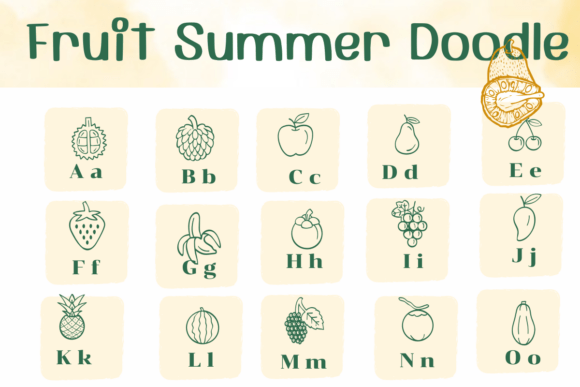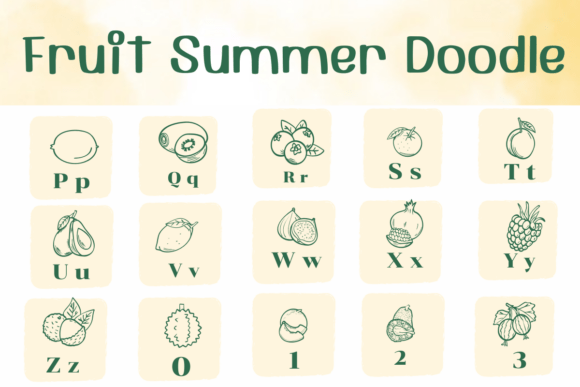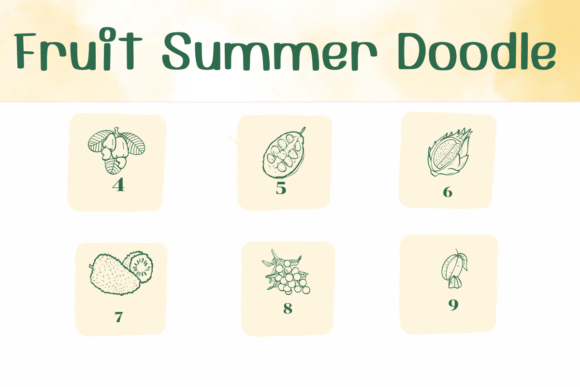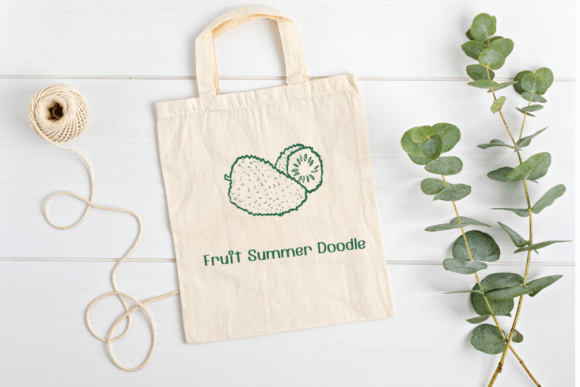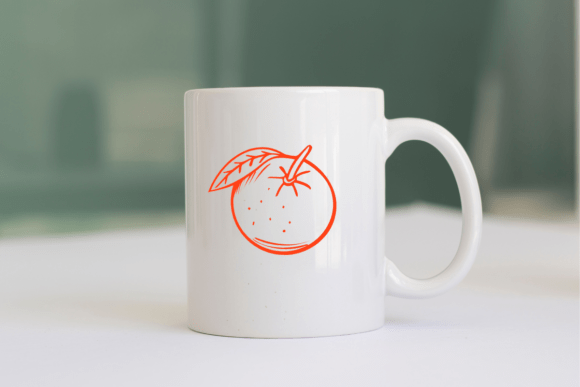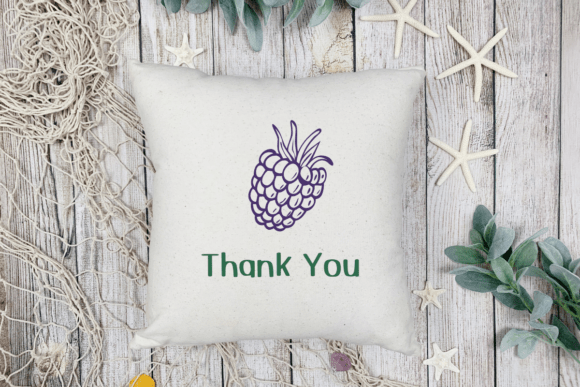
Fruit Summer Doodle Font: Add a Splash of Creativity to Your Designs
Are you looking for a fun and playful font to add a touch of summer to your designs? Look no further than the Fruit Summer Doodle Font! This charming dingbats font is filled with hand-drawn fruit illustrations that are perfect for summer-themed designs, recipe books, kids’ crafts, and branding for food and beverage products.
What is Fruit Summer Doodle Font?
Fruit Summer Doodle Font is a unique and creative font that features a collection of hand-drawn fruit illustrations. Each symbol is carefully crafted to add a splash of creativity and fun to your projects. The font is designed to be playful and whimsical, making it perfect for designs that require a lighthearted and carefree touch.
Perfect for Summer-Themed Designs
Summer is here, and what better way to celebrate than with a font that’s perfect for summer-themed designs? Fruit Summer Doodle Font features a range of fruit illustrations that are sure to evoke the feeling of warm weather and sunshine. From juicy watermelons to sweet pineapples, this font has everything you need to create fun and colorful designs that scream summer.
Use in Recipe Books and Food Blogging
Food bloggers and cookbook authors, rejoice! Fruit Summer Doodle Font is the perfect addition to your recipe books and blog posts. Add a touch of whimsy to your ingredient lists, headings, and illustrations with this charming font. The hand-drawn fruit illustrations will add a pop of color and creativity to your designs, making your recipes stand out from the crowd.
Kids’ Crafts and Educational Materials
Fruit Summer Doodle Font is also perfect for kids’ crafts and educational materials. The playful illustrations will delight children and add a fun touch to worksheets, activity sheets, and other educational resources. Teachers and parents can use this font to create engaging and interactive materials that will keep kids excited about learning.
Branding for Food and Beverage Products
Are you looking for a unique and creative way to brand your food and beverage products? Fruit Summer Doodle Font is the perfect solution. The hand-drawn fruit illustrations will add a touch of personality to your packaging, labels, and marketing materials, making your products stand out on store shelves.
Key Features of Fruit Summer Doodle Font
- Playful dingbats font featuring hand-drawn fruit illustrations
- Perfect for summer-themed designs, recipe books, kids’ crafts, and branding for food and beverage products
- Unique and creative way to add a touch of personality to your designs
- Hand-drawn illustrations of various fruits, including watermelon, pineapple, and more
Tips for Using Fruit Summer Doodle Font
Here are some tips for using Fruit Summer Doodle Font in your designs:
- Use the font to add a touch of whimsy to your designs, such as in headings, subheadings, and illustrations
- Combine the font with other fonts and graphics to create a unique and eye-catching design
- Use the font to create fun and interactive elements, such as buttons, icons, and graphics
| Font Name | Fruit Summer Doodle Font |
| Author | Ketsarin |